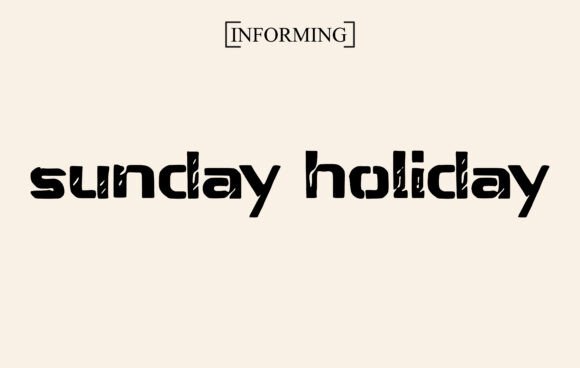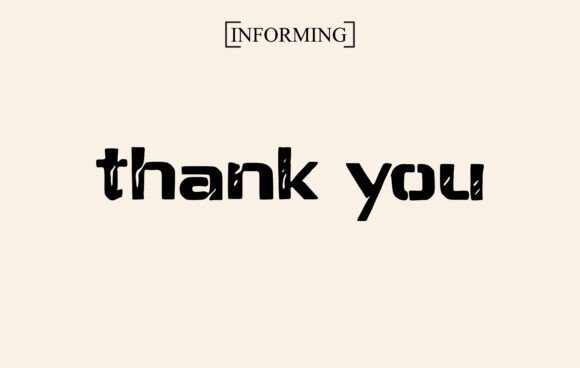
Blessed Scriptura Font
Blessed Scriptura Expertly designed to be a true favorite, this font has the potential to take your creative ideas to the highest level This font is legible and looks great as a title or body text. This font would be perfect for many different designs for magazine headlines, t-shirt,social media, branding, wedding invitations, cards, etc.